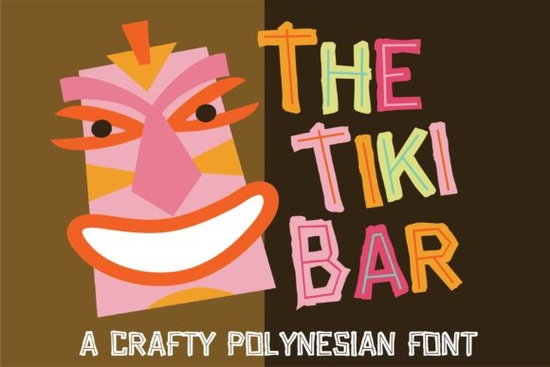
If you’ve been searching for a display font that feels fun, tropical, and just a little bit nostalgic, the Tiki Bar Font might be exactly what your next project needs. It’s hand-crafted with soft curves and playful letterforms that nod to Polynesian-inspired tiki culture think bamboo huts, fruity drinks, and sunset luaus. Whether you’re designing merch for summer festivals, branding a beachside shop, or just adding flair to a personal craft project, this font brings personality without being overwhelming.
What makes it especially useful is how naturally it fits into themes like vacation branding, party invites, menu boards, or even apparel for print-on-demand stores. Unlike some novelty fonts that feel gimmicky after a few uses, Tiki Bar holds up because of its balanced whimsy not too cartoony, not too stiff. You can pair it with clean sans-serifs for contrast or let it shine solo on posters and social media graphics.
Who actually uses fonts like this in real projects?
Small business owners running food trucks or tropical-themed cafes often grab fonts like this to stand out visually. Etsy sellers creating custom mugs, totes, or stickers find it works great for niche audiences who love island vibes. Even event planners use it for luau birthday parties or destination wedding signage. If your audience responds to warmth, humor, or escapism, this style connects better than corporate-looking typefaces.
How do I know if it’ll work for my brand or product?
Ask yourself: Is your message meant to feel relaxed, joyful, or culturally inspired? If yes, then Tiki Bar could be a strong fit. It’s not ideal for formal documents or minimalist luxury brands, but for anything leaning into laid-back, retro, or handmade aesthetics, it adds charm.
- Great for: Summer sales, tropical drink menus, beachwear logos, party invites, sticker designs, POD shirts
- Less ideal for: Corporate reports, medical brochures, tech startups, legal services
You don’t need advanced design skills to use it well. Just drop it into Canva, Photoshop, or Illustrator, pick a warm color palette (think coral, teal, sand), and let the font do the heavy lifting. Bonus tip: Add subtle textures like wood grain or palm leaf patterns behind your text to enhance the theme without crowding the design.
What if I want something similar but different?
That depends on your current toolkit. If most of your fonts are sleek, geometric, or ultra-modern, adding something like Tiki Bar gives you range. Designers who serve multiple clients or run seasonal shops benefit from having thematic variety. One month you’re doing Valentine’s cards, the next you’re prepping for summer markets having the right font ready saves hours of searching later.
Plus, Creative Fabrica often bundles fonts with commercial licenses, so if you’re selling products, you’re covered. Always double-check the license terms, but generally, their display fonts include POD and small business usage. No extra fees or stress.
And if you’re curious about the cultural inspiration behind fonts like this, there’s a whole history of mid-century tiki design worth exploring from Don the Beachcomber to Trader Vic’s. While Tiki Bar isn’t a historical replica, it respectfully channels that era’s playful spirit. You can learn more about the roots of tiki aesthetics through resources like the Tiki Central community, which dives into decor, music, and yes typography too.
Quick checklist before you download:
- ✅ Does your project need a friendly, tropical, or retro vibe?